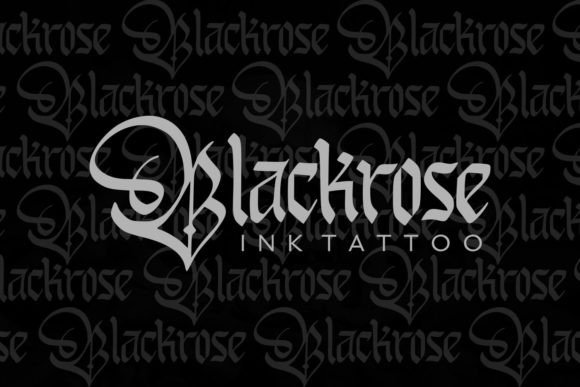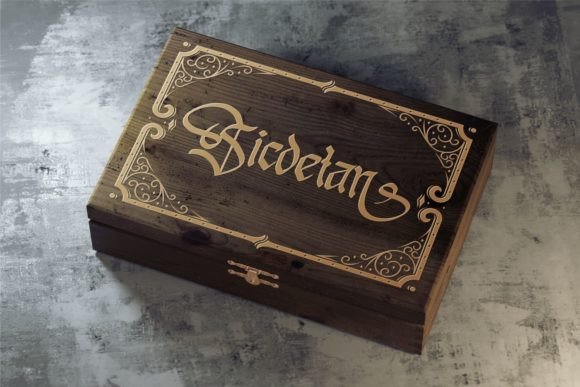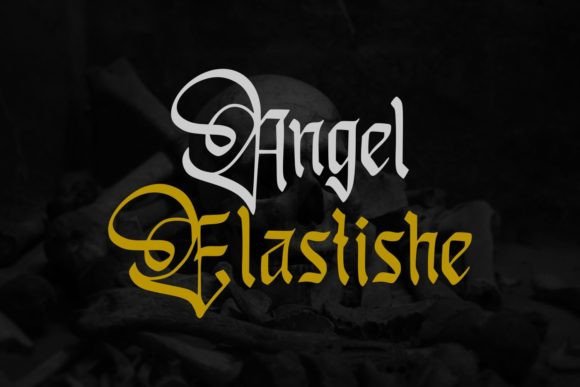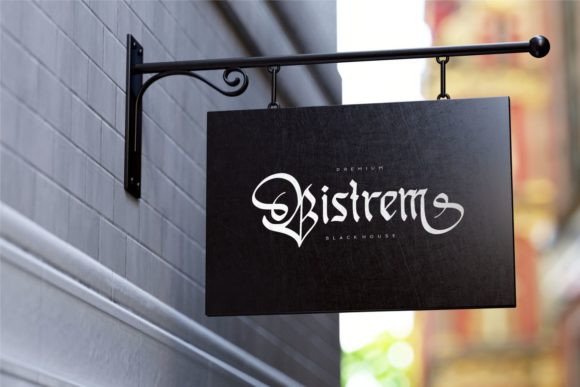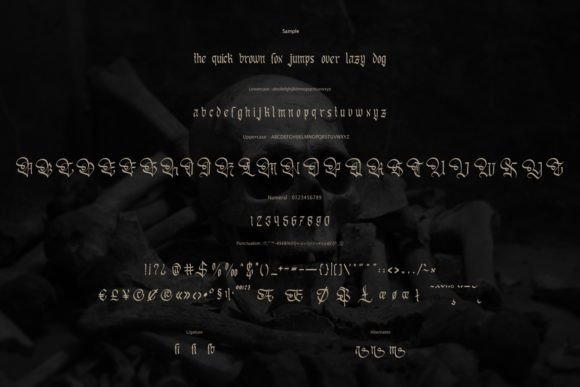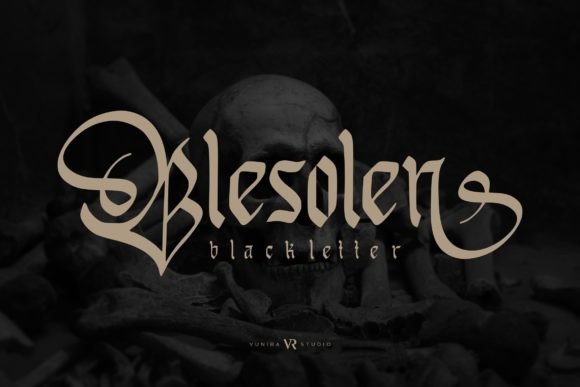
Blesolen Font: A Modern Script Blackletter for Bold Designs
In the world of typography, fonts play a crucial role in conveying the tone and personality of a brand or design. For designers and crafters looking for a unique and striking font, Blesolen is an excellent choice. This modern script blackletter font combines traditional and contemporary design elements, making it perfect for branding, packaging, and editorial design.
The Characteristics of Blesolen Font
Blesolen is a modern script blackletter font that boasts bold letterforms and unique ligatures. Its striking and edgy look is balanced by a touch of elegance, thanks to its script style. This combination of characteristics makes Blesolen a versatile font that can be used for a variety of projects, from bold and daring designs to more refined and sophisticated ones.
Traditional and Contemporary Design Elements
One of the standout features of Blesolen is its blend of traditional and contemporary design elements. The font’s blackletter style is rooted in traditional typography, while its script style and modern ligatures bring a fresh and contemporary feel. This blend of old and new makes Blesolen a unique and eye-catching font that can add depth and character to any design.
Perfect for Branding, Packaging, and Editorial Design
Blesolen’s versatility makes it an excellent choice for a range of design applications. For branding, the font’s bold and striking letterforms can help create a memorable and impactful logo. In packaging design, Blesolen’s unique ligatures and script style can add an extra layer of visual interest and sophistication. In editorial design, the font’s elegance and refinement make it perfect for headlines, titles, and other display text.
What Makes Blesolen Stand Out
So, what sets Blesolen apart from other fonts? Here are a few key features that make it a standout choice:
- Bold letterforms: Blesolen’s bold letterforms make it perfect for designs that need to make a statement.
- Unique ligatures: The font’s unique ligatures add an extra layer of visual interest and sophistication.
- Script style: Blesolen’s script style adds a touch of elegance and refinement.
- Versatility: The font’s versatility makes it suitable for a wide range of design applications.
How to Use Blesolen in Your Designs
Using Blesolen in your designs is easy. Here are a few tips to get you started:
- Pair it with a sans-serif font: Pairing Blesolen with a sans-serif font can create a striking contrast and add visual interest to your design.
- Use it for headlines and titles: Blesolen’s bold letterforms and elegant script style make it perfect for headlines and titles.
- Experiment with different colors: Blesolen looks great in a range of colors, from bold and bright to more muted and subtle.
In conclusion, Blesolen is a modern script blackletter font that offers a unique and striking design solution for designers and crafters. Its blend of traditional and contemporary design elements, bold letterforms, and elegant script style make it perfect for a wide range of design applications. Whether you’re looking to create a bold and daring design or a more refined and sophisticated one, Blesolen is an excellent choice.